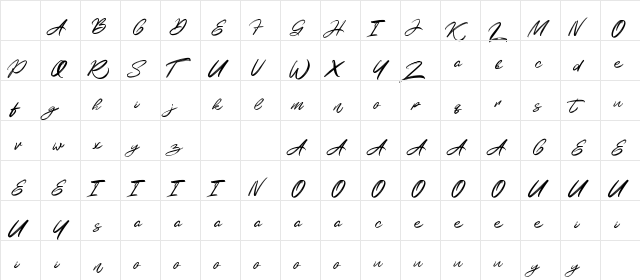
Complete Kalvise Brushy Regular glyph index. Displaying only characters natively supported by Kalvise Brushy Regular font.
Kalvise Brushy flows with the natural rhythm of handwritten lettering, making it ideal for designs that call for warmth and personal expression.
Font Pairing: Combine Kalvise Brushy with a simple geometric sans for maximum contrast - the tension between flowing curves and clean structure is a classic typographic pairing.
Pro Tip: Use Kalvise Brushy for short runs of text - names, titles, or taglines. Extended body copy in script faces tires the eye quickly.